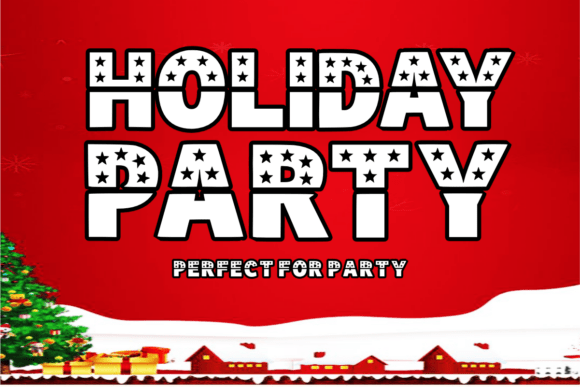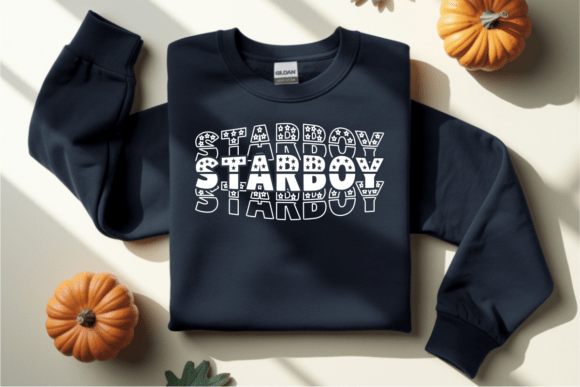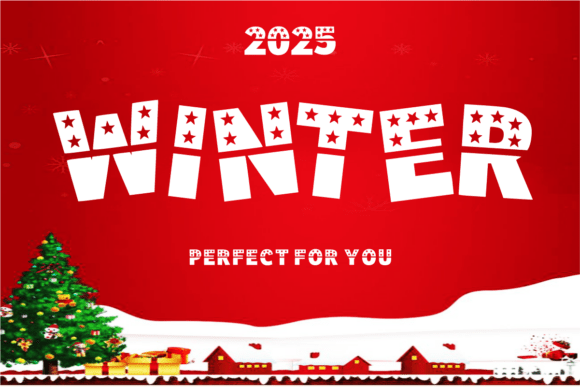
Unleash the Magic of Christmas with Christmas Dance Font
The holiday season is upon us, and with it comes the desire to create festive and enchanting content that captures the spirit of Christmas. For designers, crafters, and creatives, finding the right font to convey the magic of the season can be a challenge. That’s where Christmas Dance Font comes in – an exquisitely decorative font that embodies the whimsy and wonder of the holiday season.
A Font that Shines with Festive Charm
Christmas Dance Font is a robust and enchanting typeface that radiates festive charm. Each character is carefully crafted with a whimsical star, bringing a dash of celestial sparkle to your creations. The font’s decorative design is perfect for adding a touch of magic to any project, from Christmas flyers and New Year posters to holiday events and digital banners.
Perfectly Adaptive and Versatile
One of the standout features of Christmas Dance Font is its adaptability. The font’s blocky letterforms offer excellent readability, making it perfect for use in a variety of applications, from seasonal branding to toy packaging. The playful embellishments, including star-filled cutouts, ensure a standout look that’s sure to capture the attention of your audience.
Ideal for Holiday Projects
Christmas Dance Font is specifically designed with the holiday season in mind. The font’s festive design makes it ideal for a range of projects, including:
- Christmas flyers and invitations
- New Year posters and social media graphics
- Holiday events and party decorations
- Digital banners and online advertising
- Seasonal branding and packaging
- Toy packaging and gift wrapping
Elevate Your Creations with a Dash of Sparkle
Christmas Dance Font is more than just a font – it’s a way to elevate your creations and add a dash of excitement and sparkle to your designs. Whether you’re a designer, crafter, or simply someone who loves the holiday season, this font is sure to become a vital asset to your font collection.
Key Features of Christmas Dance Font
- Enchantingly decorative font with festive charm
- Whimsical star embellishments add a touch of celestial sparkle
- Robust and blocky letterforms for excellent readability
- Perfectly adaptive and versatile for a range of applications
- Ideal for holiday projects, seasonal branding, and festive designs
Tips for Using Christmas Dance Font
To get the most out of Christmas Dance Font, here are a few tips:
- Use the font in combination with other festive design elements, such as holly, snowflakes, or reindeer, to create a cohesive holiday look.
- Don’t be afraid to get creative and add your own personal touch to your designs – Christmas Dance Font is the perfect starting point.
Christmas Dance Font is a truly special font that’s sure to bring a touch of magic to your holiday designs. With its enchantingly decorative design, whimsical star embellishments, and robust letterforms, this font is the perfect choice for designers, crafters, and creatives who want to create festive and enchanting content. So why wait? Unleash the magic of Christmas Dance Font and elevate your creations to new heights.